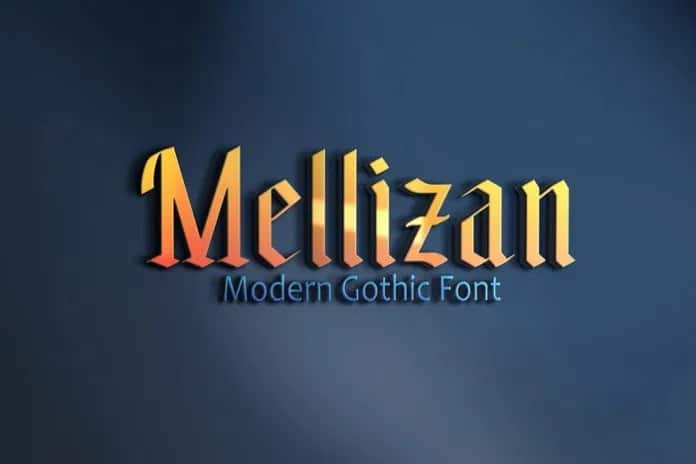
Mellizan Font
Mellizan Blackletter Font is a gothic display typeface best for dark and moody vibes. Consist of Standard upper/lower case characters, numerals, punctuations, some multilingual letters. Unique gothic blackletter for your design, perfect for clothing, labels and packaging, branding, or any Gothic-themed projects.